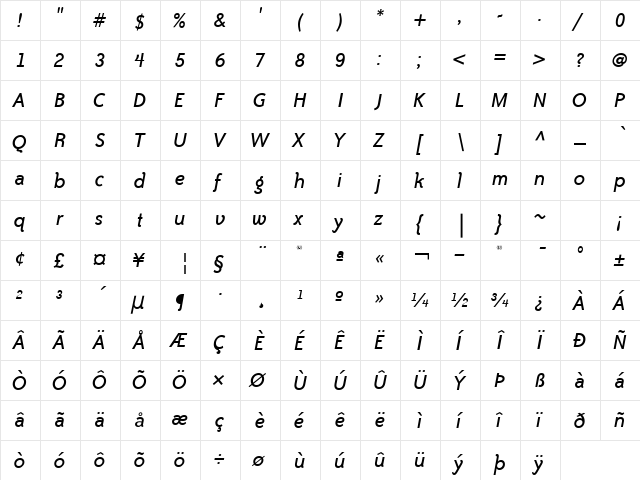
BaileySansITC-Book BookItalic Font Preview
BaileySansITC-Book BookItalic
Design Context for BaileySansITC-Book Typeface
BaileySansITC-Book is a composed and adaptable typeface that performs quietly and consistently across a wide range of design contexts. The dynamic lean of this cut emphasises speed and emphasis in any layout.
Pro Tip: Use BaileySansITC-Book for emphasis, pull quotes, and subheadings where its slanted energy can add rhythm to the layout.